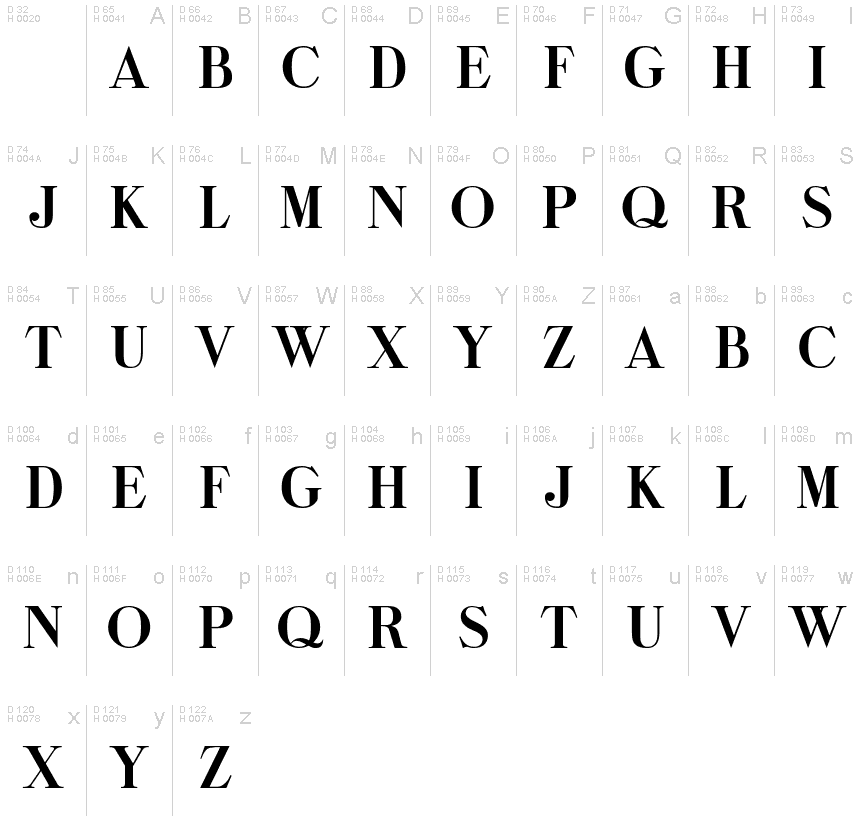
Slurry Regular
Slurry, a captivating serif font designed by Vladimir Nikolic, exudes an air of sophistication and elegance. Its semi-bold weight adds a touch of modernity to traditional serifs, making it perfect for branding projects that require a balance between classic and contemporary aesthetics.
Slurry's sleek lines and refined curves make it an excellent choice for fashion magazines, high-end beauty products, or luxurious wedding invitations. With its versatility and charm, Slurry is also well-suited for restaurant menus seeking to convey an upscale dining experience or for book covers that demand attention on the shelves.